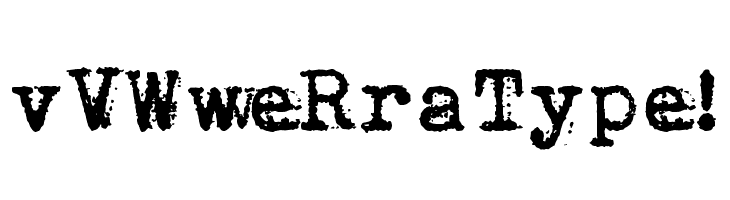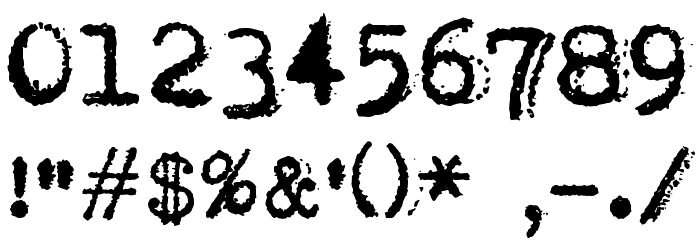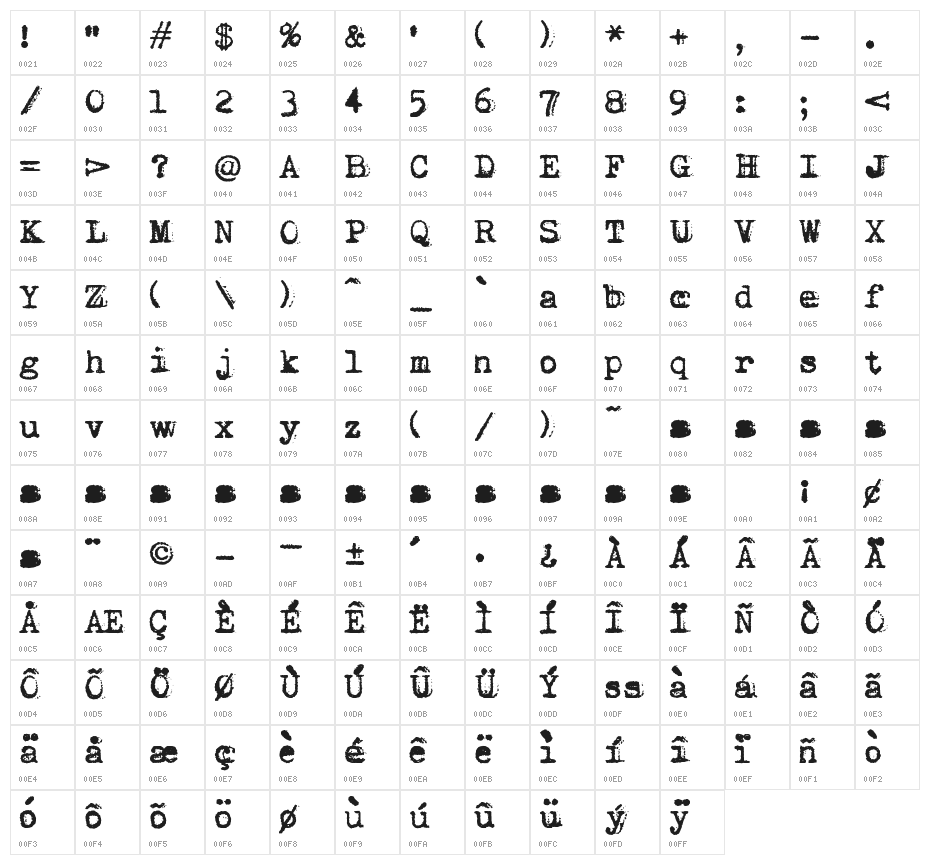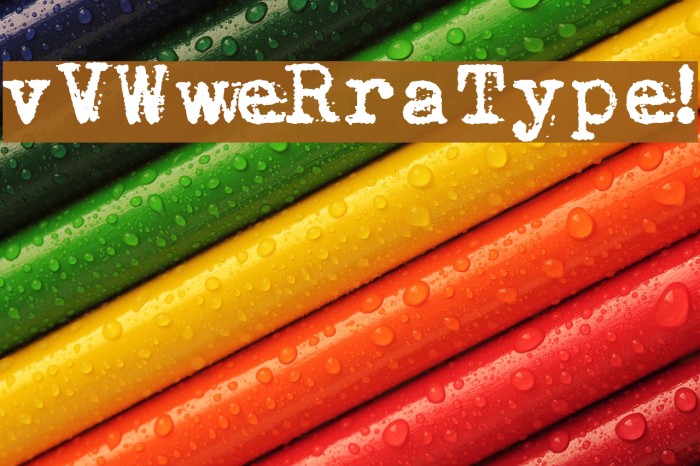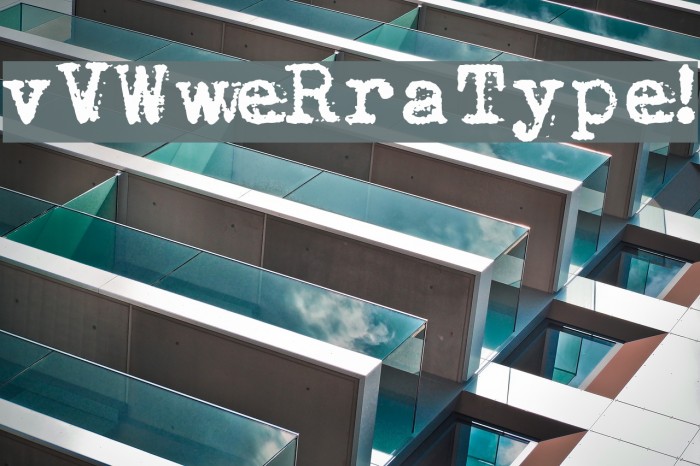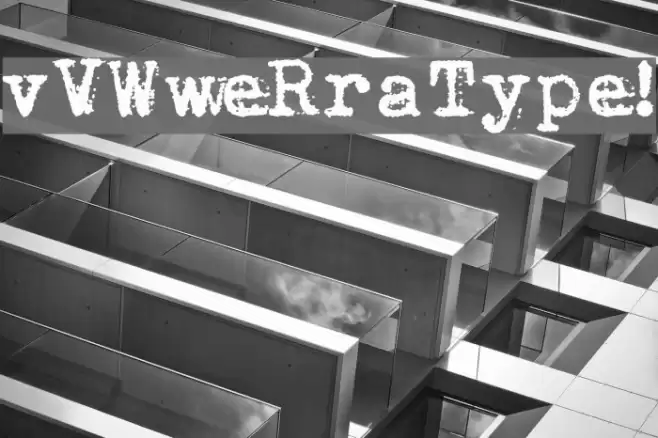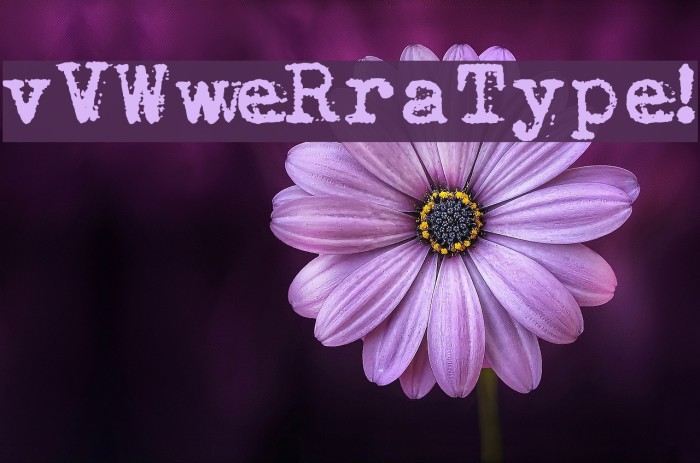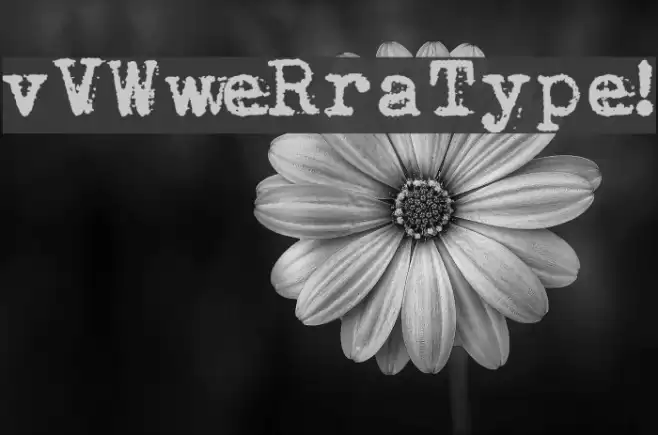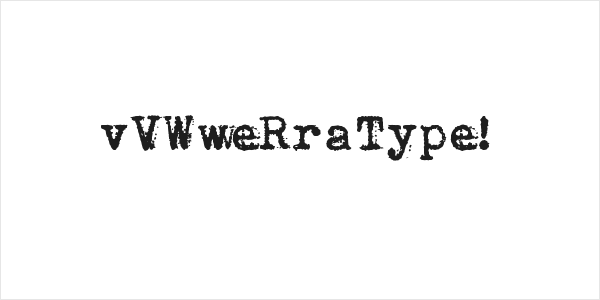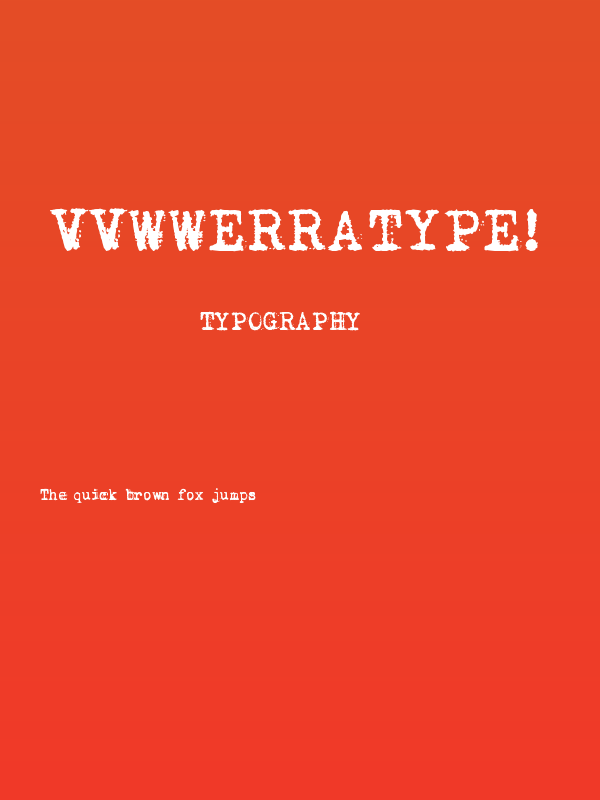
vVWweRraType! Font
vVWweRraType! Description
This font features a distressed, grunge style that mimics the appearance of typewriter text with a worn and textured effect. The characters are bold and have a rough, uneven edge, giving them a vintage and rugged look. The uppercase and lowercase letters maintain a consistent style, while the numbers and special characters share the same distressed appearance. This font is ideal for projects that require a retro or industrial aesthetic, adding a sense of authenticity and character to the design.
Overall StyleVintage
Proposed ProjectsIdeal for vintage posters, retro-themed designs, album covers, and branding that requires a rugged, authentic feel.